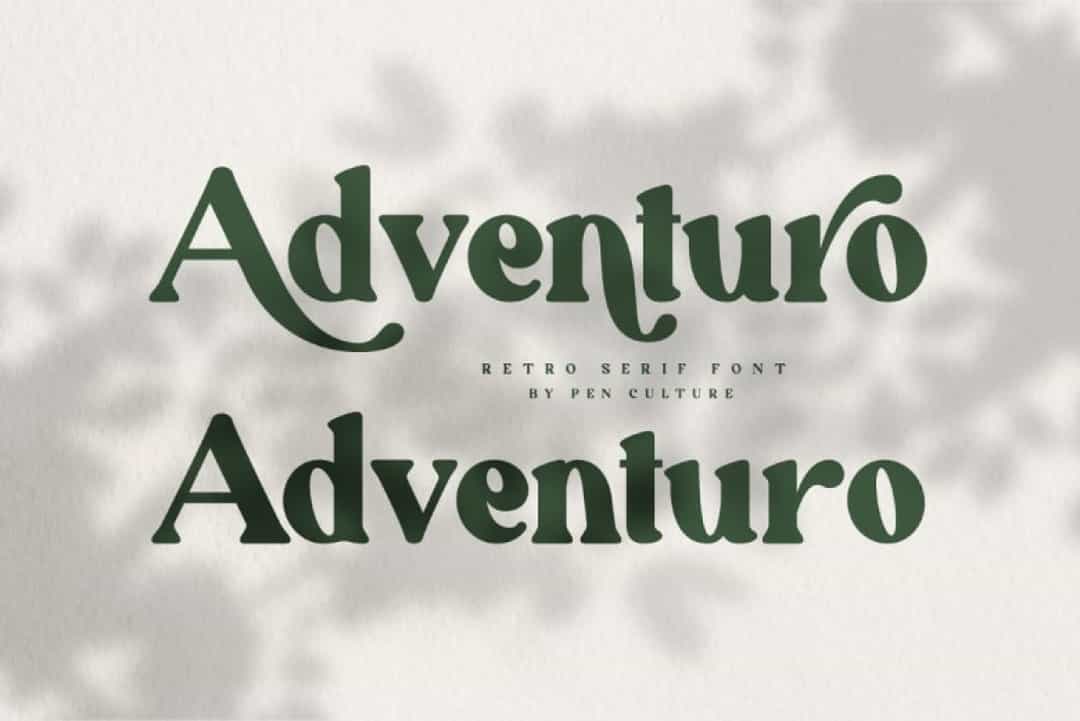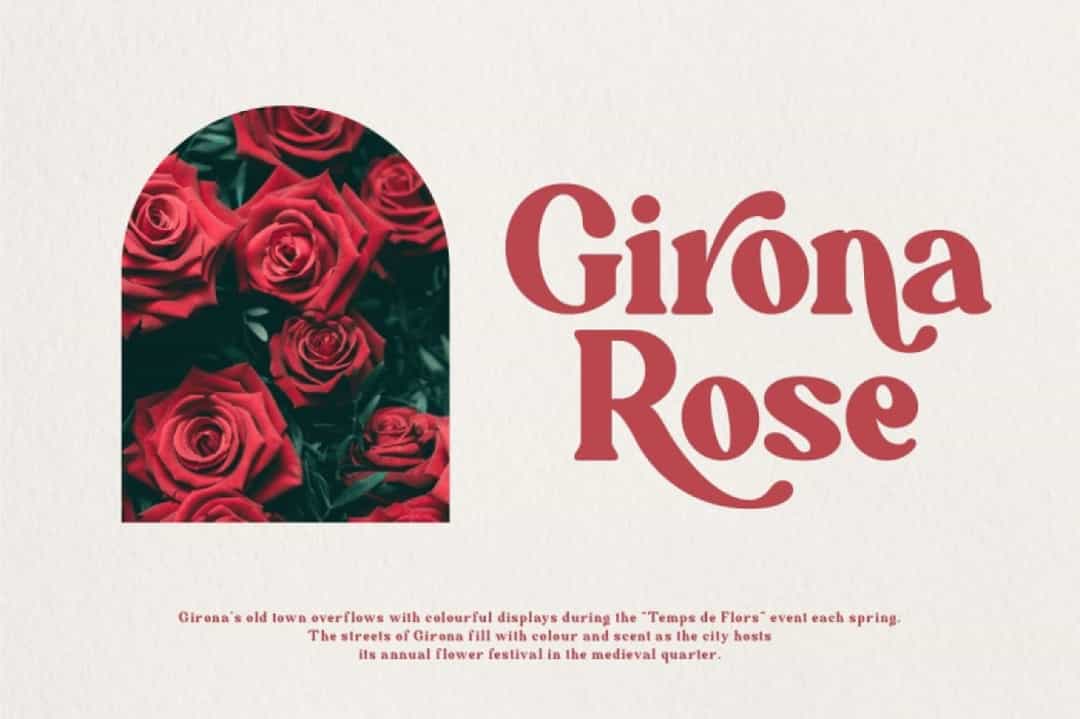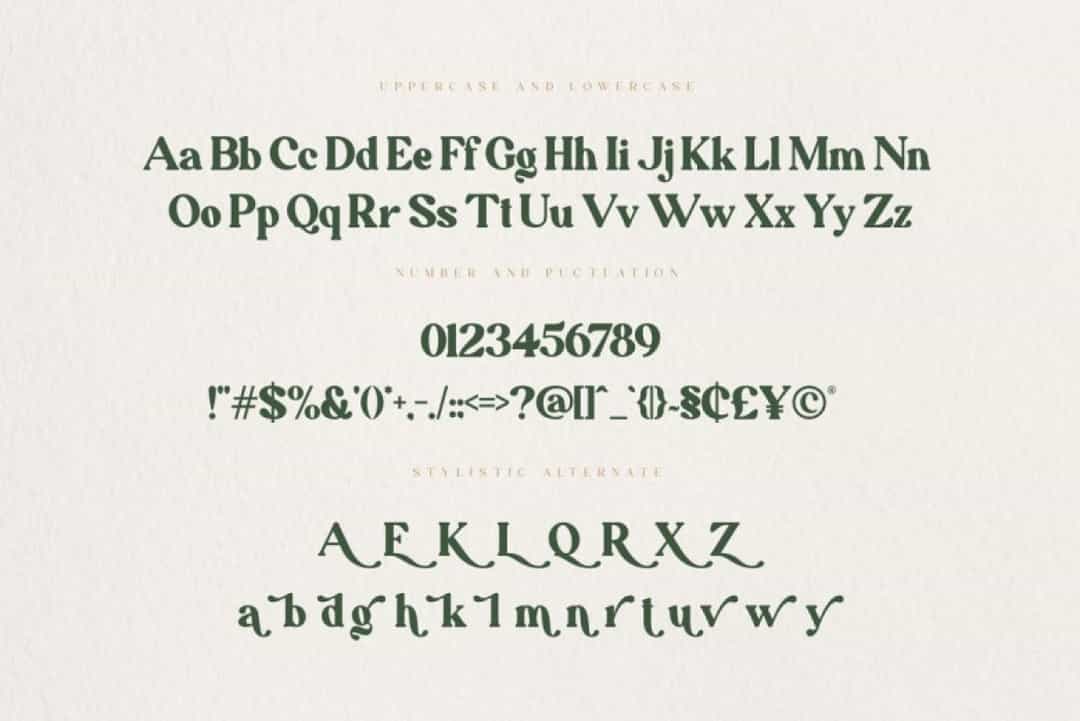
Adventuro can be described as a retro serif typeface. Although its appearance is vintage-like, Adventuro features over 20 alternative fonts to help design projects such as packaging designs, logos, posters and magazine images.